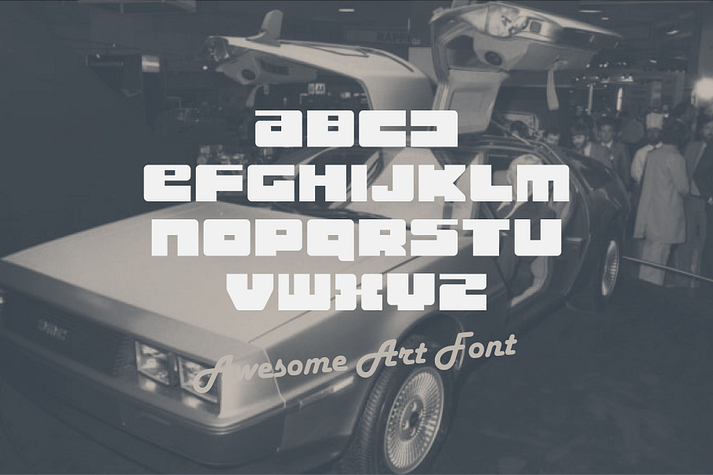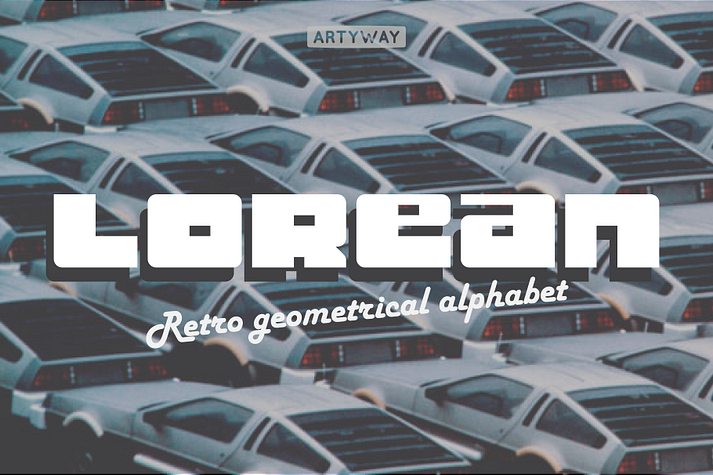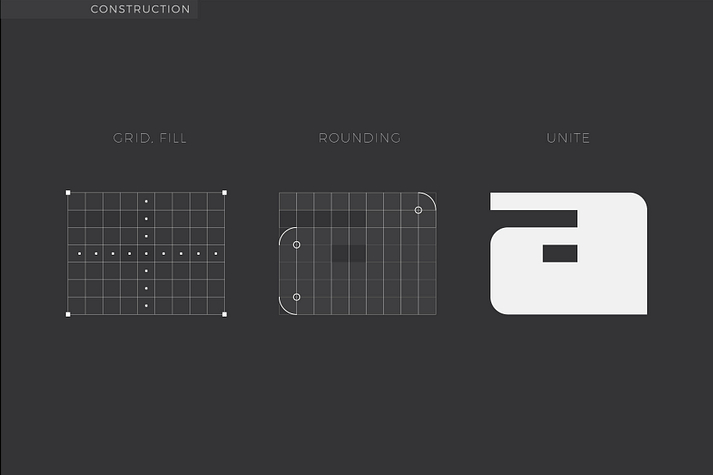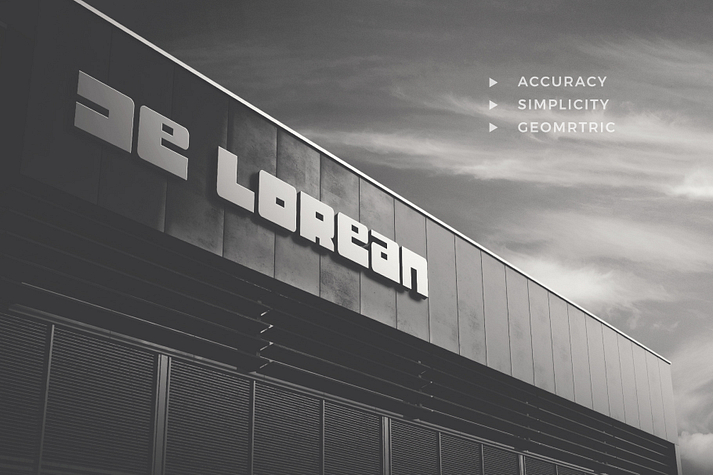
Lorean
Lorean is a display and display sans font family published by Artyway.
For true connoisseurs, I created a nostalgic font inspired by Back to the Future is a 1985 American science fiction film.
I used a stylized adaptation of DeLorean car letters aesthetics. The result is a unique successor, a neat geometric font that retains its aesthetics of DeLorean car letters.
At the same time more modern and versatile "Lorean" evokes a pleasant feeling, it surprises and soothes .